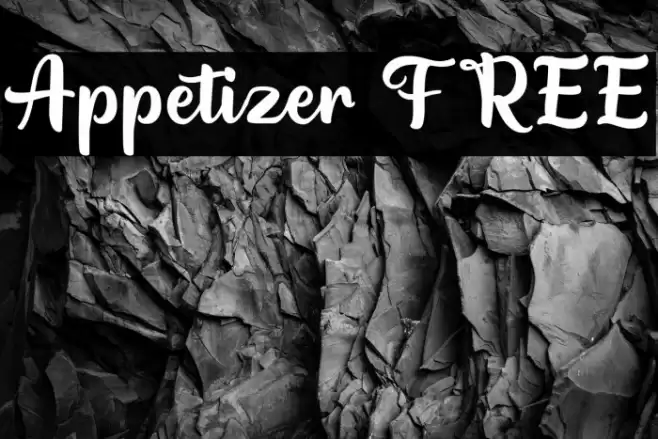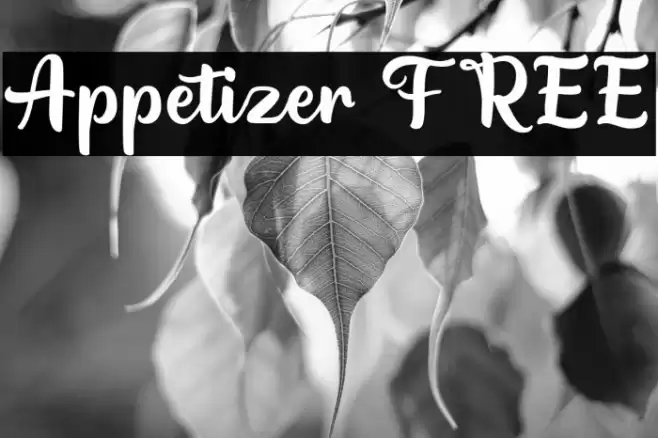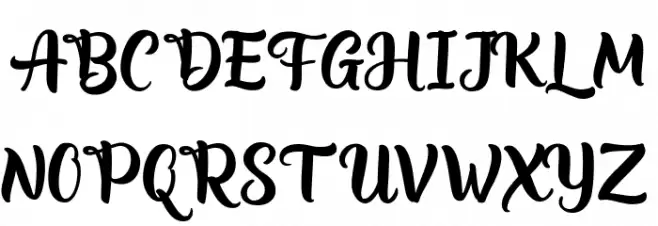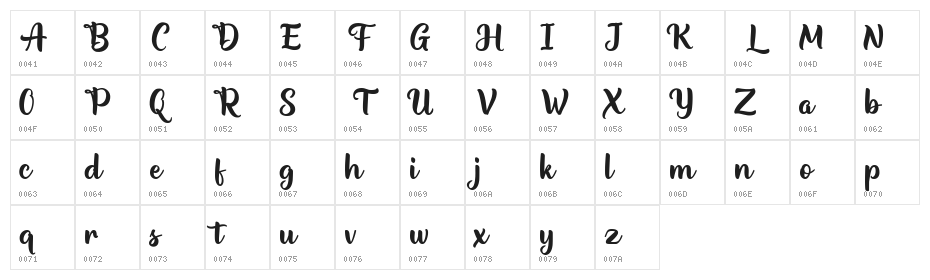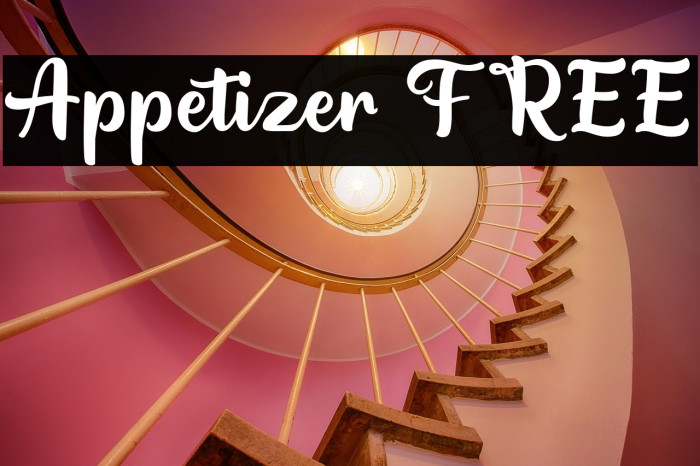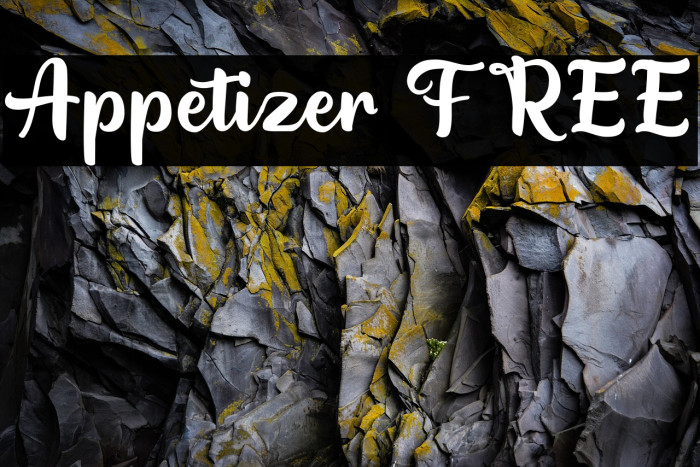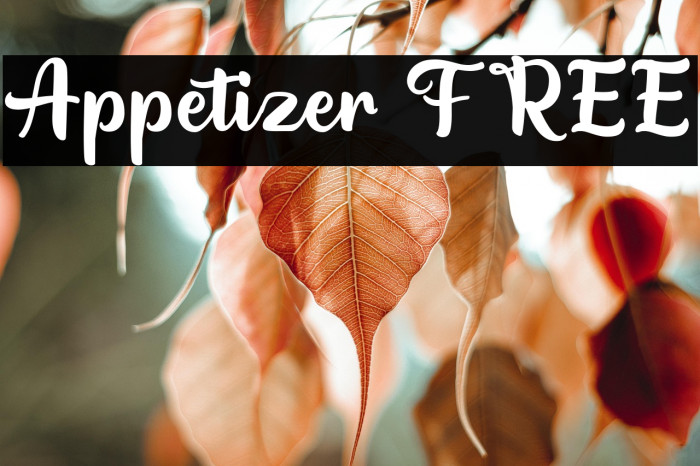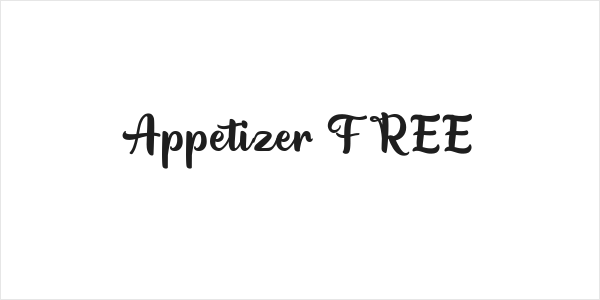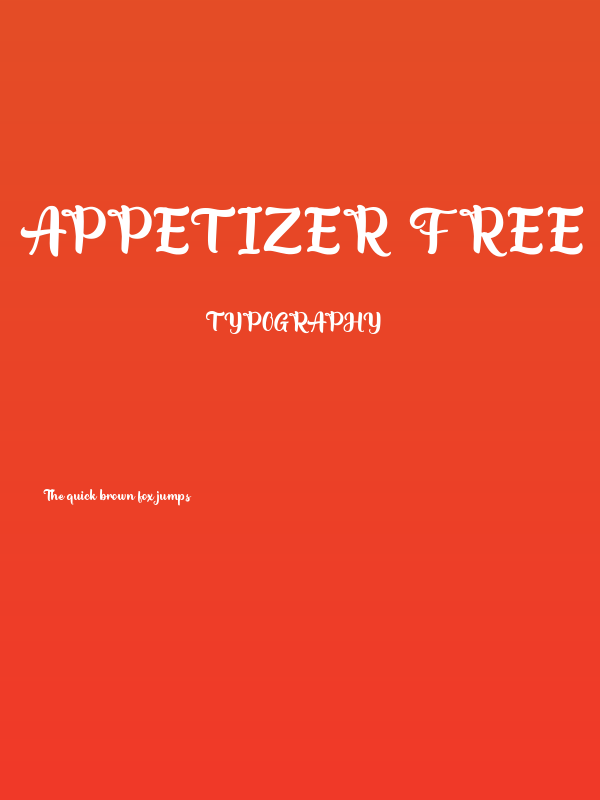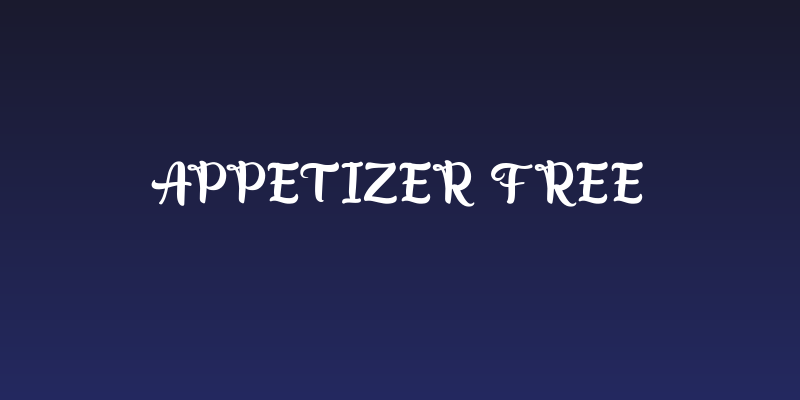
Appetizer FREE Font
Appetizer FREE Description
This font features a playful and whimsical script style with a hand-drawn appearance. The letters are bold and have a flowing, cursive quality that adds a sense of movement and energy. The uppercase letters are slightly more structured, while the lowercase letters exhibit a more relaxed and informal style. The strokes are thick and consistent, providing a strong visual impact. The overall design is decorative, making it suitable for creative and artistic projects. The font's unique character is enhanced by its slightly irregular shapes and varying line thickness, which contribute to its charm and personality.
A playful and bold script font with a hand-drawn, decorative style from Regular fonts.
- Proposed Projects: Ideal for greeting cards, invitations, logos, and branding materials that require a creative and artistic touch.
- Use Case: Logos, Invitations, Greeting Cards